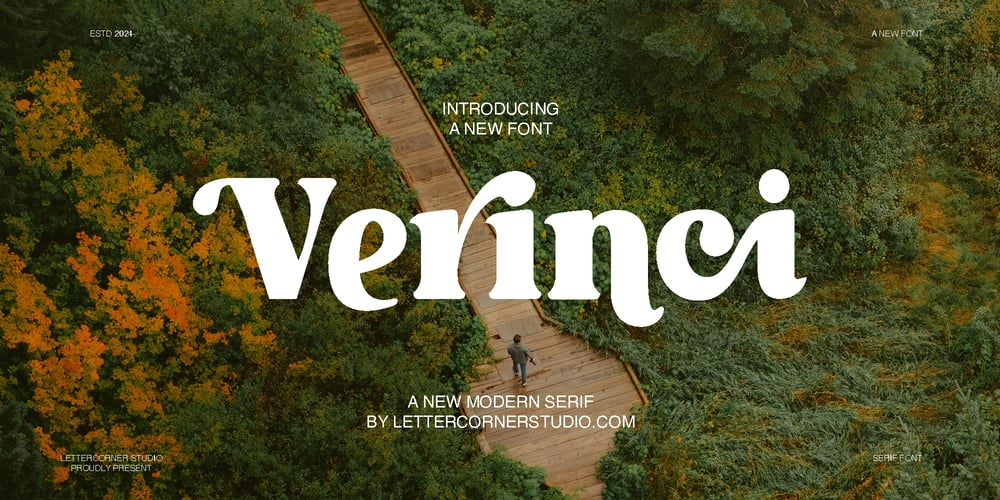
Verinci
Verinci font
Verinci Font Family was designed by Muhammad Afif Ersya and published by Mevstory Studio. Verinci contains 2 styles and family package options. Verinci is a stylish vintage font inspired by 70’s groovy vibe with a touch of modernity. It looks amazing at display sizes and is easily readable in text size. Verinci comes with access to your OpenType features, large selection of alternate glyphs and ligatures. There are two versions of this font : REGULAR and ITALIC.